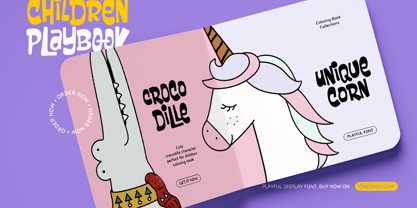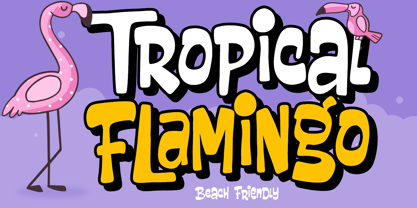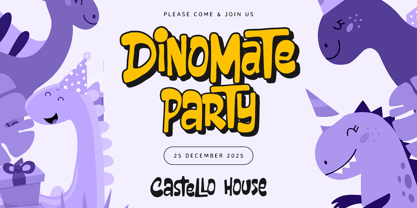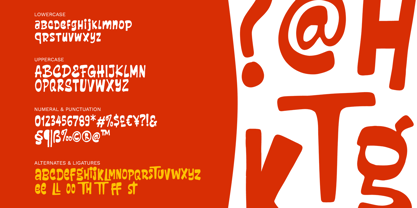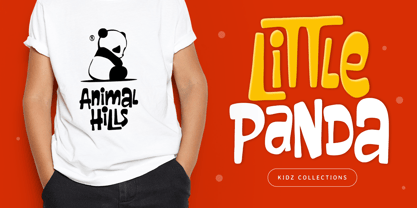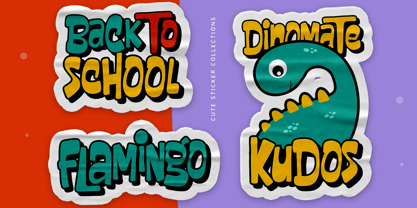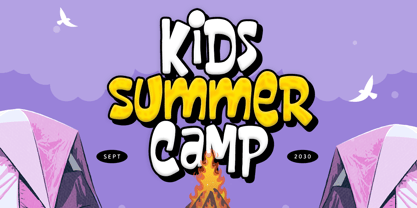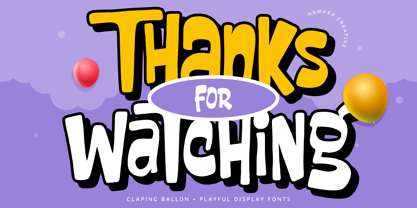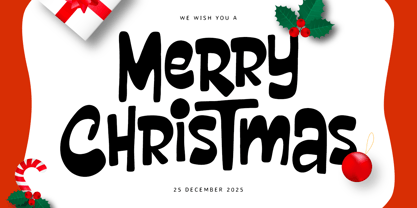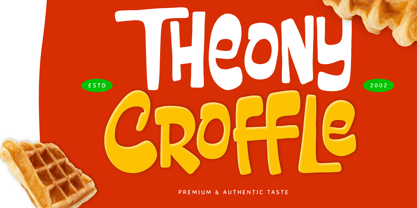
Claping Ballon
by Namara Creative Studio
The Claping Ballon Font Family was designed by Toni Setiawan and published by Namara Creative Studio. Claping Ballon contains 3 styles and family package options. More about this family
Claping Ballon is a playful display font with bold, rounded, and friendly letterforms. This fun cartoon font is perfect for children designs, party invitations, greeting cards, posters, kids branding, and cheerful typography projects. Inspired by balloons, celebrations, and cute illustration styles, Claping Ballon brings a happy and energetic mood to your designs. The font features a hand-crafted look while maintaining clean readability, making it ideal for both print and digital use. If you are looking for a kids font, playful font, cartoon display font, or fun typography, Claping Ballon is a perfect choice. What’s Included : Uppercase, Lowercase, Numerals & Punctuations. Alternates, Ligatures & Multilingual Support. PUA encoded – fully accessible in any design software Thank You
Designers: Toni Setiawan
Foundry: Namara Creative Studio